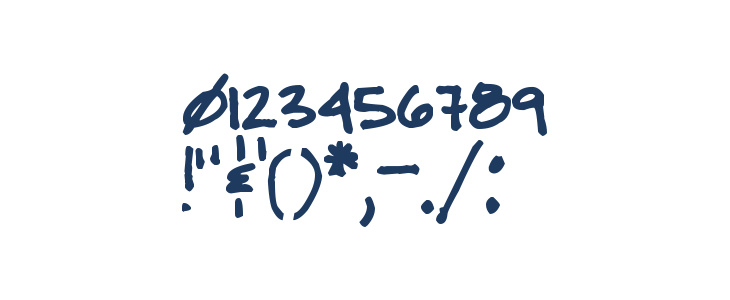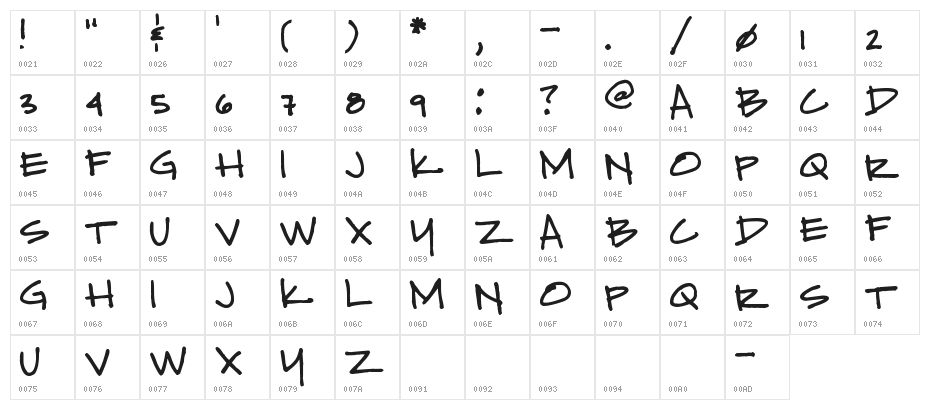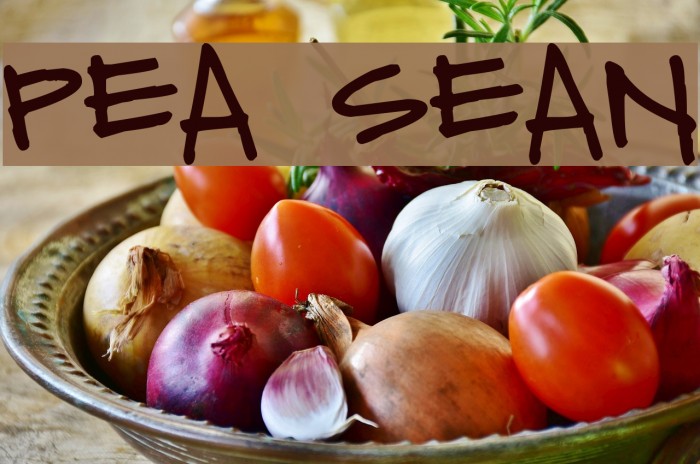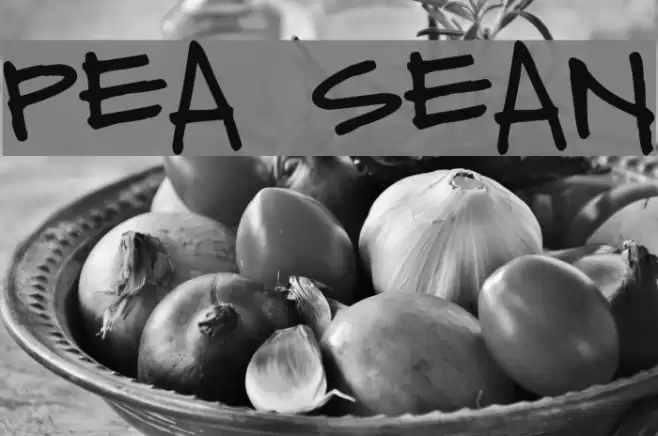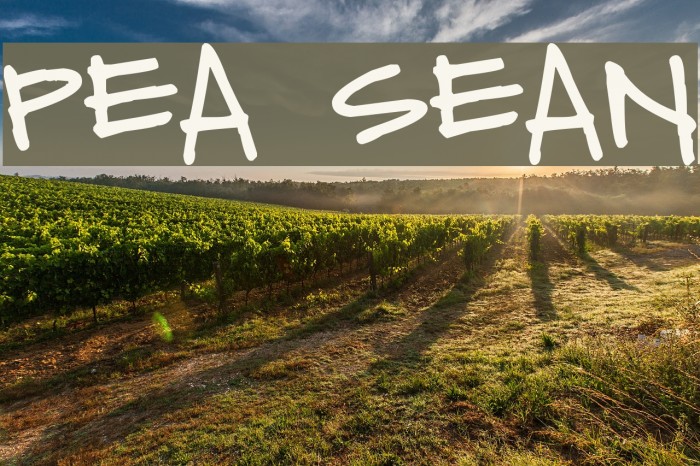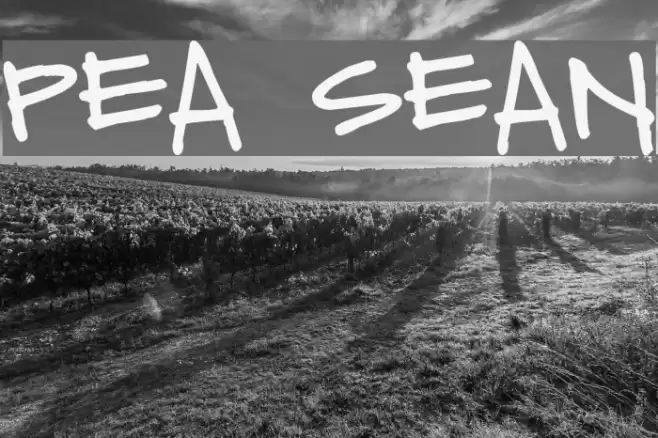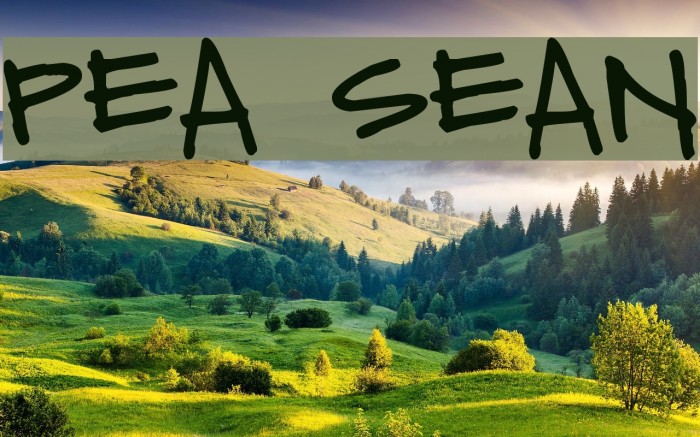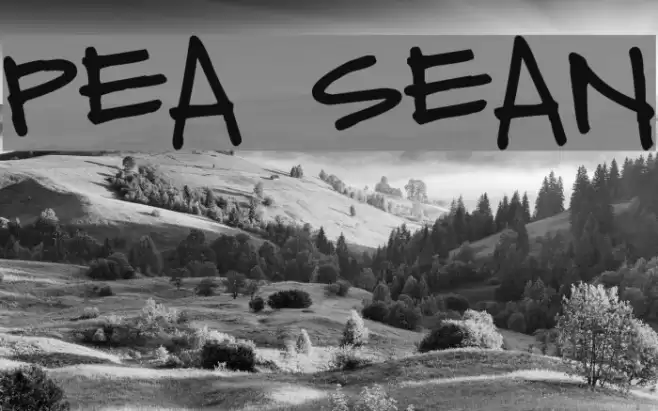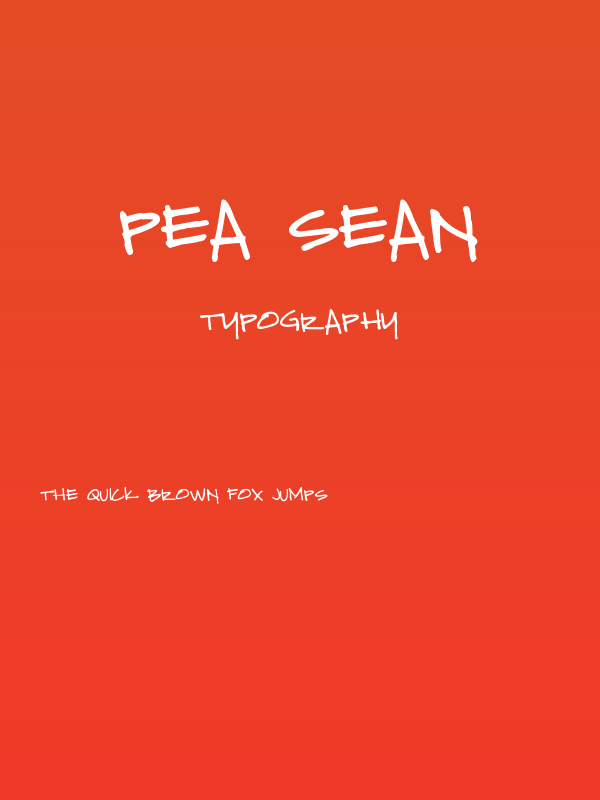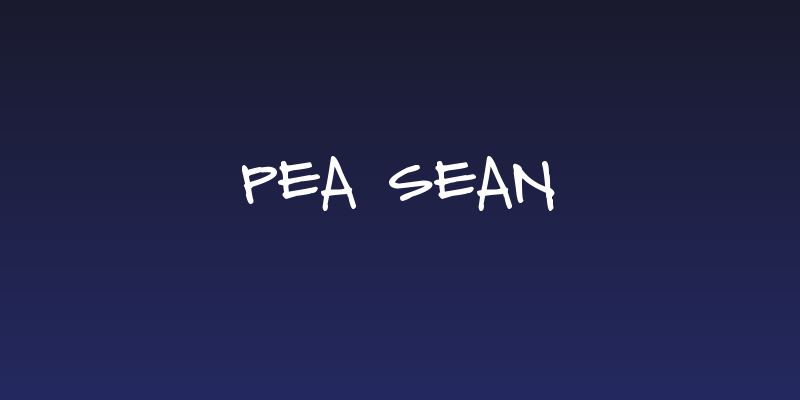
Pea Sean Font
Pea Sean Description
This font exudes a casual and playful handwritten style, characterized by its loose, free-flowing strokes that mimic the natural movement of handwriting. The letters are slightly slanted, adding to the informal and relaxed feel. The uppercase and lowercase letters maintain a consistent style, with rounded edges and a slight irregularity that enhances its handwritten charm. The numerals and special characters follow the same aesthetic, ensuring a cohesive look across all text elements. This font is perfect for projects that require a personal touch, such as greeting cards, invitations, or informal branding materials.
| Use Case | Headlines, Informal text, Personal projects |
| Proposed Projects | Ideal for greeting cards, invitations, personal branding, and informal communication. |